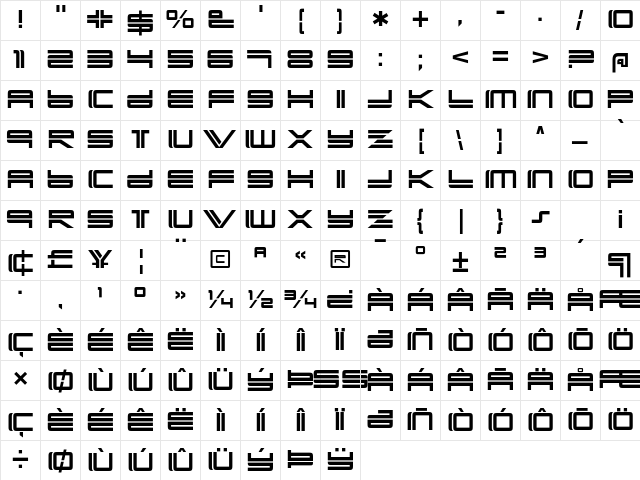
Yonder Recoil Regular
Design Context for Yonder Recoil
Yonder Recoil is a composed and adaptable typeface that performs quietly and consistently across a wide range of design contexts.